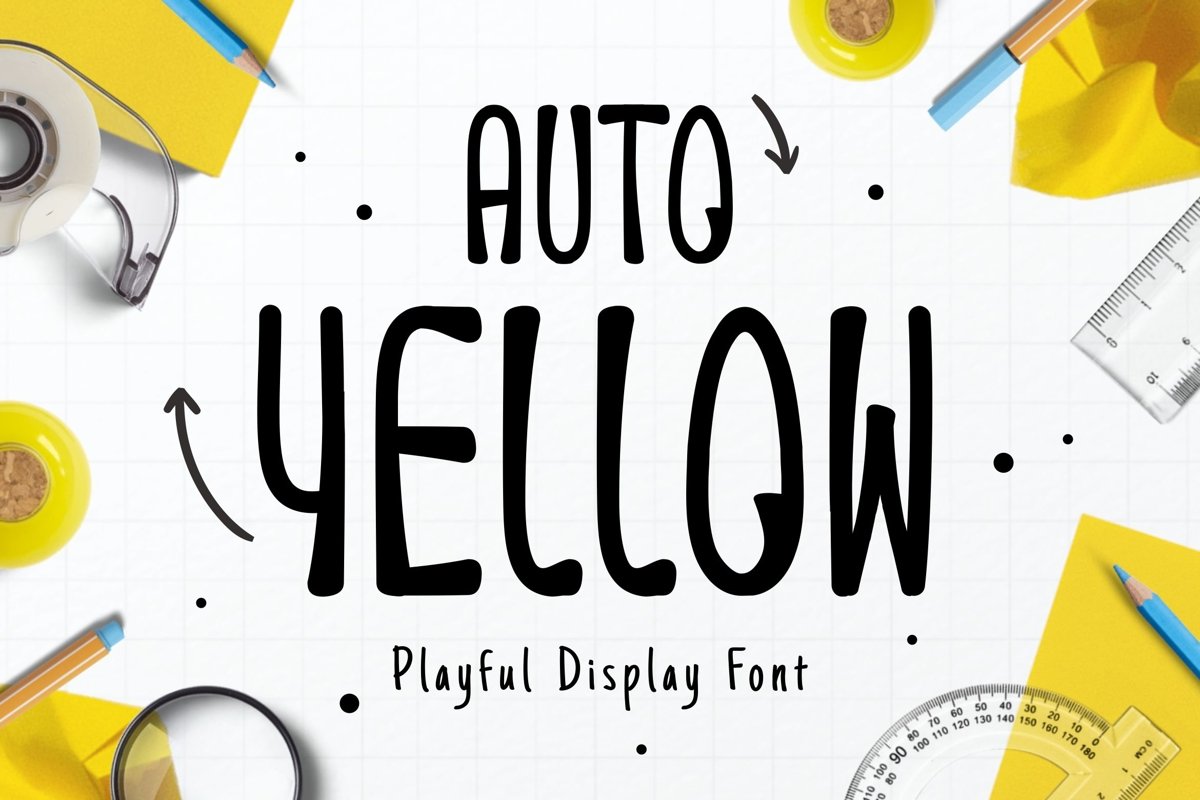
Auto Yellow Font for some designs such as the logotype, brand, packaging, quotes, music poster, t-shirt, cover book and more custom design. The features uppercase, lowercase, numeral, punctuation & symbol, multilingual support.
Auto Yellow